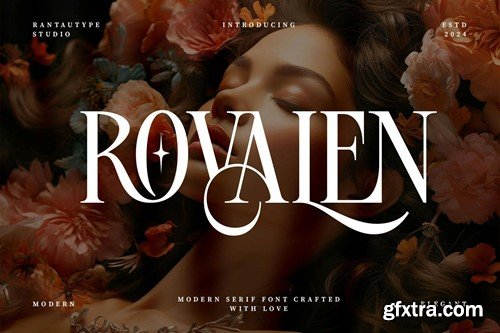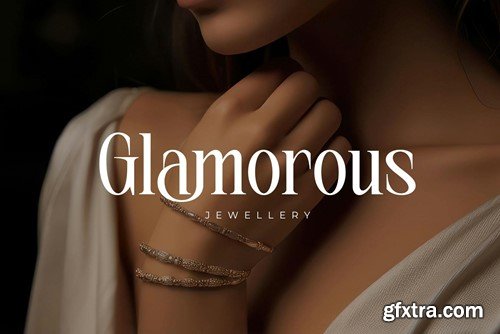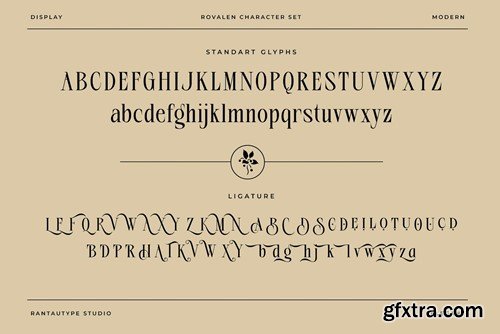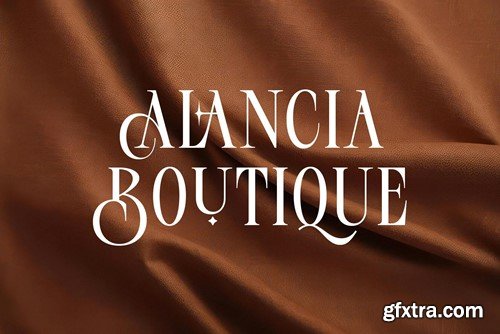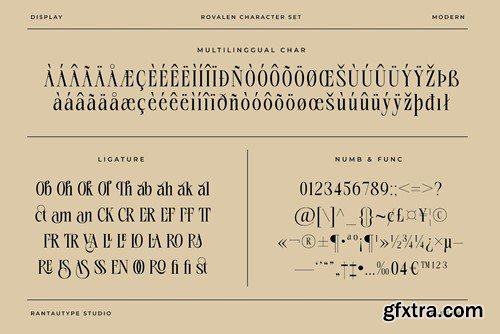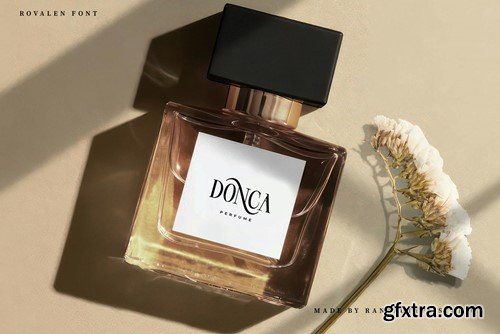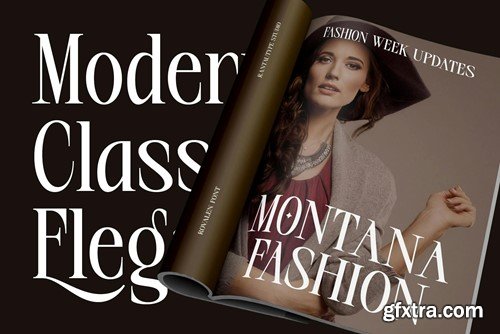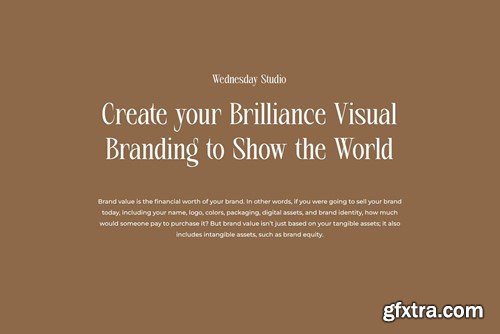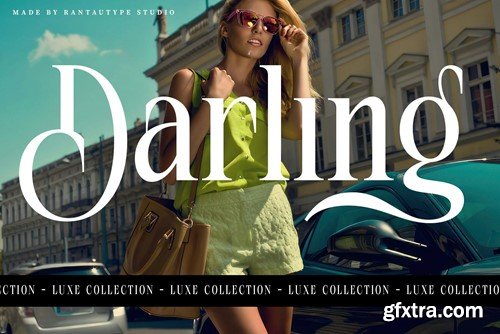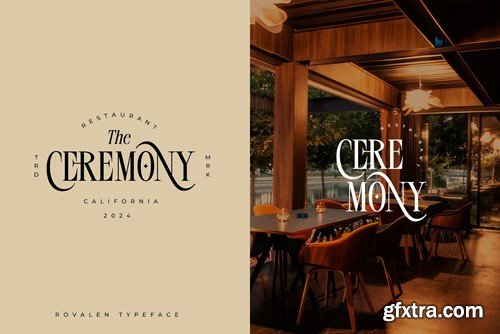
Rovalen is modern serif typeface with elegant and classy ligature. We love how ligature to connect with other shape to make different character, inspire by fashion trend and high branded labels. Rovalen is a perfectly choice for any creative endeavor, chic, lifestyle design such as logos, advertisements, watermark on photography, stationery, branding project, display and magazine, invitation, corporate brand, product design, label, business project and many other project with elegant touch. What you have: Fonts include Multilingual Character for: Afrikaans, Albanian, Asu, Basque, Bemba, Bena, Breton, Chiga, Cornish, Dutch, English, Estonian, Filipino, Finnish, Friulian, Galician, Gusii, Indonesian, Irish, Italian, Kabuverdianu, Kalenjin, Kinyarwanda, Luo, Luxembourgish, Luyia, Machame, Makhuwa-Meetto, Makonde, Malagasy, Manx, Morisyen, North, Ndebele, Nyankole, Oromo, Portuguese, Quechua, Romansh, Rombo, Rundi, Rwa, Samburu, Sango, Sangu, Scottish, Gaelic, Sena, Shambala, Shona, Soga, Somali, Spanish, Swahili, Swedish, Swiss, German. Thank you for your purchase! Hope you enjoy with our font! *Please read FAQ page before make a purchase.